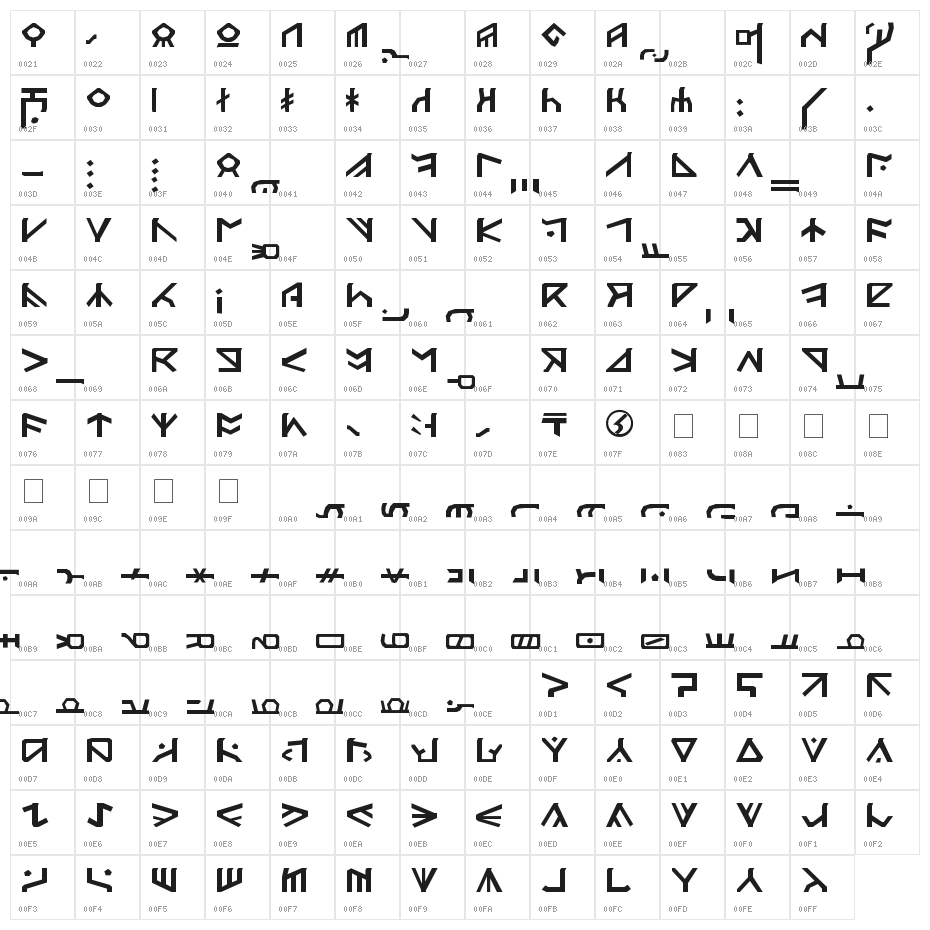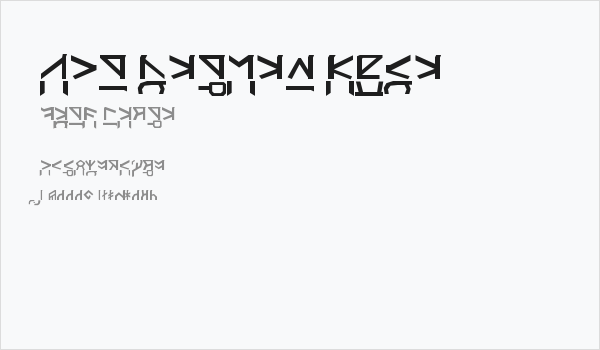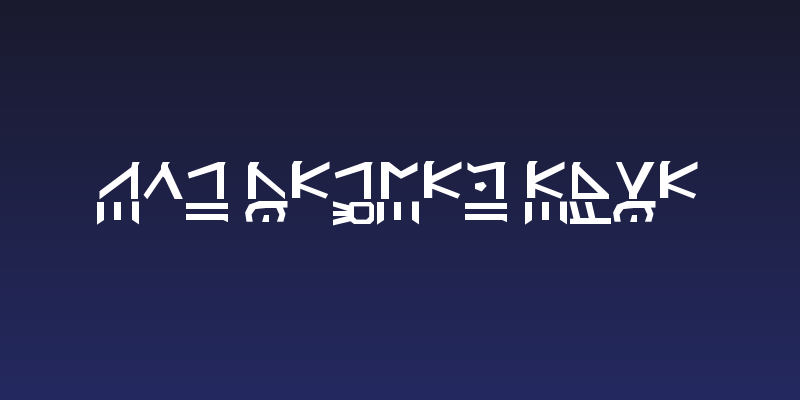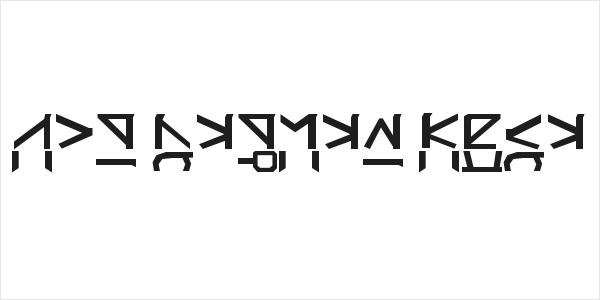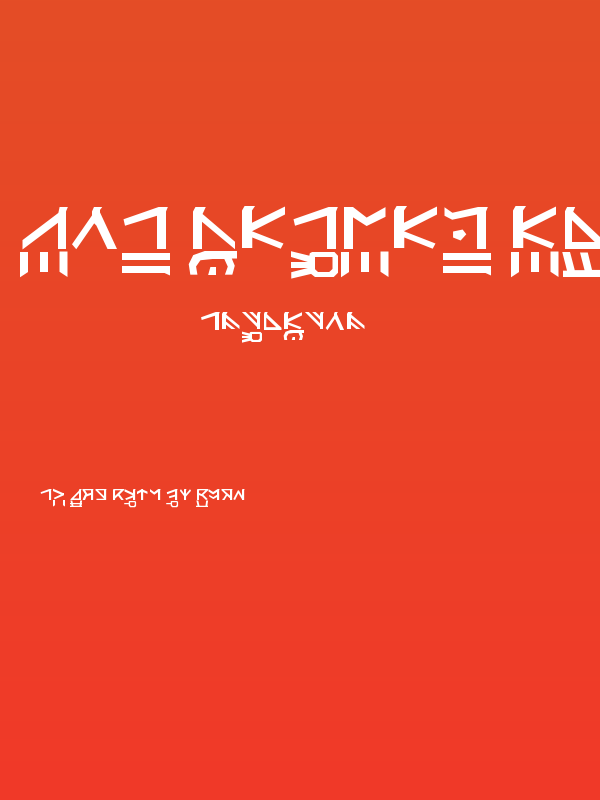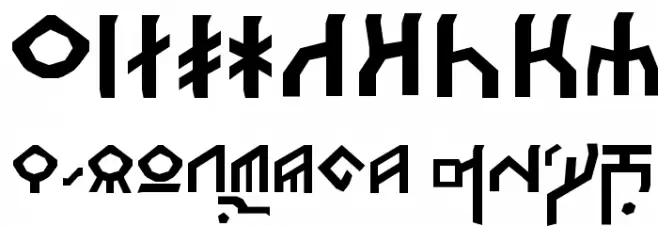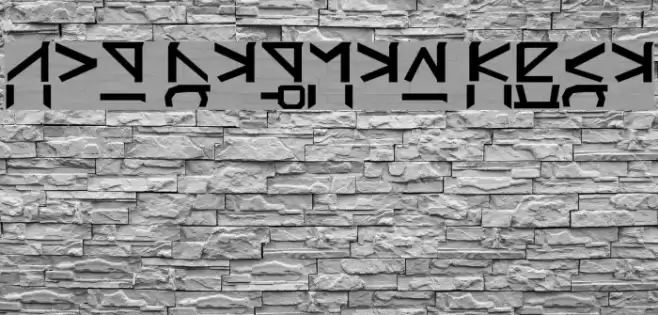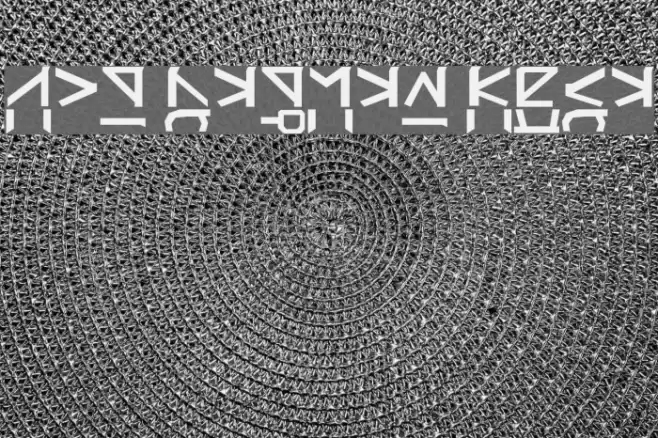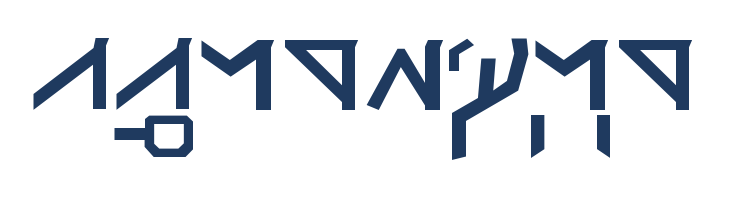
Fehti Martonersi Regular Font
This font features a highly stylized and geometric design, reminiscent of ancient scripts or runic alphabets. The characters are composed of bold, angular lines and sharp edges, giving it a distinct and striking appearance. Each letter is crafted with unique geometric patterns, creating a sense of mystery and intrigue. The font's design is consistent throughout, maintaining a uniformity that enhances its decorative appeal. It is not suitable for body text due to its complex and decorative nature but can be effectively used for thematic or artistic projects.
| Use Case | Logos, Posters, Thematic Designs |
| Proposed Projects | Ideal for fantasy-themed designs, video game graphics, movie posters, or any project requiring a mystical or ancient aesthetic. |